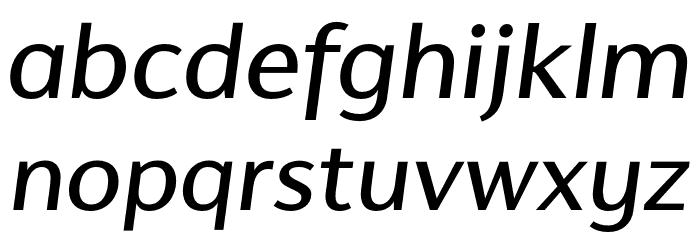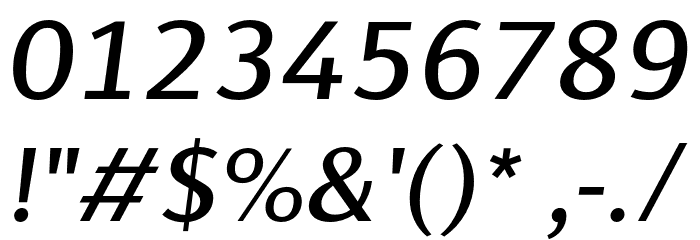
Cromlin DEMO Medium Italic Font
This font exhibits a sleek and modern design with a slight italic slant, giving it a dynamic and forward-moving appearance. The characters are well-proportioned, with a medium weight that balances readability and style. The sans-serif nature of the font contributes to its clean and uncluttered look, making it versatile for various applications. The spacing between characters is normal, ensuring clarity and legibility. The font's smooth curves and straight lines create a harmonious blend, suitable for both digital and print media.
A modern, italic sans-serif font with medium weight and normal spacing.